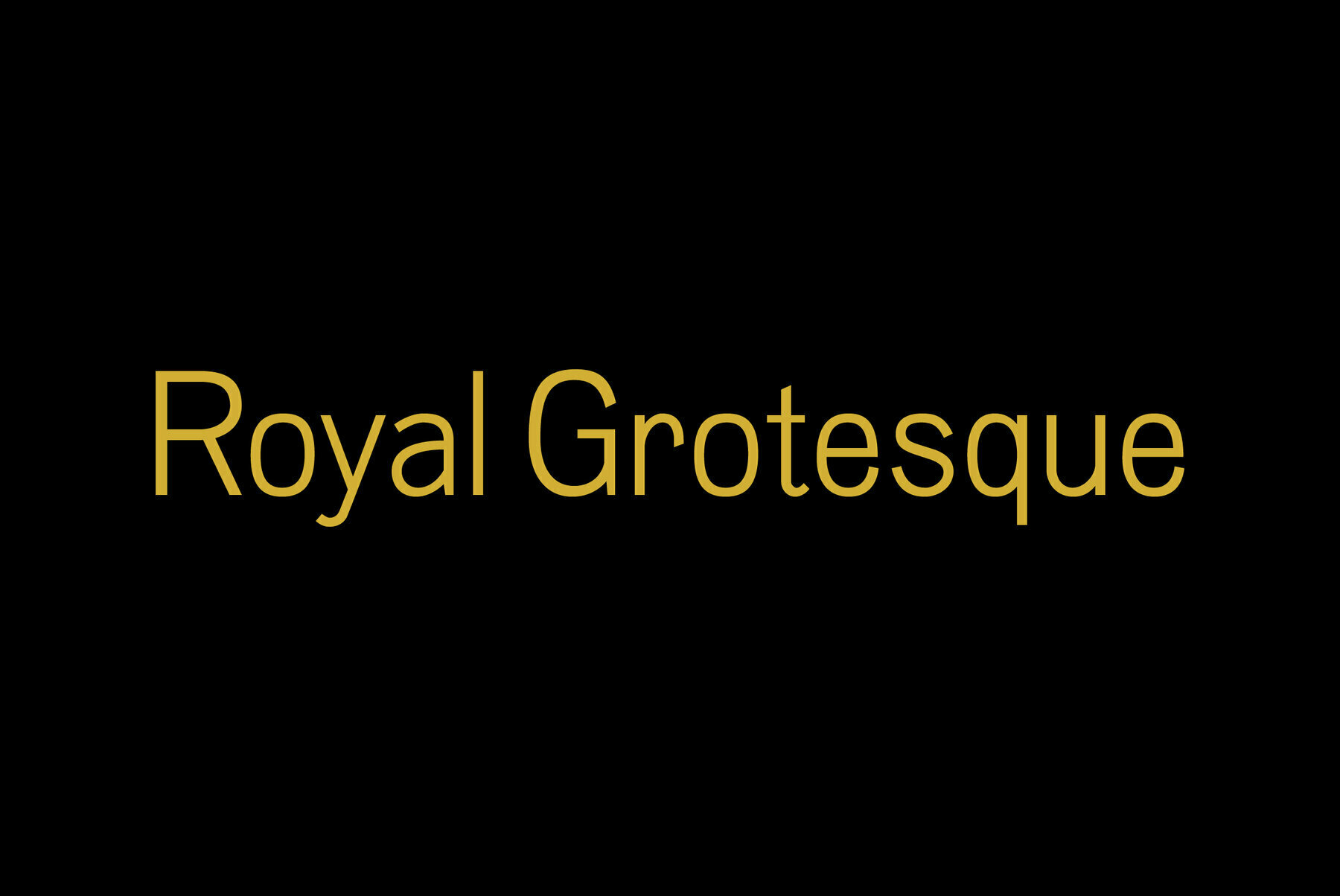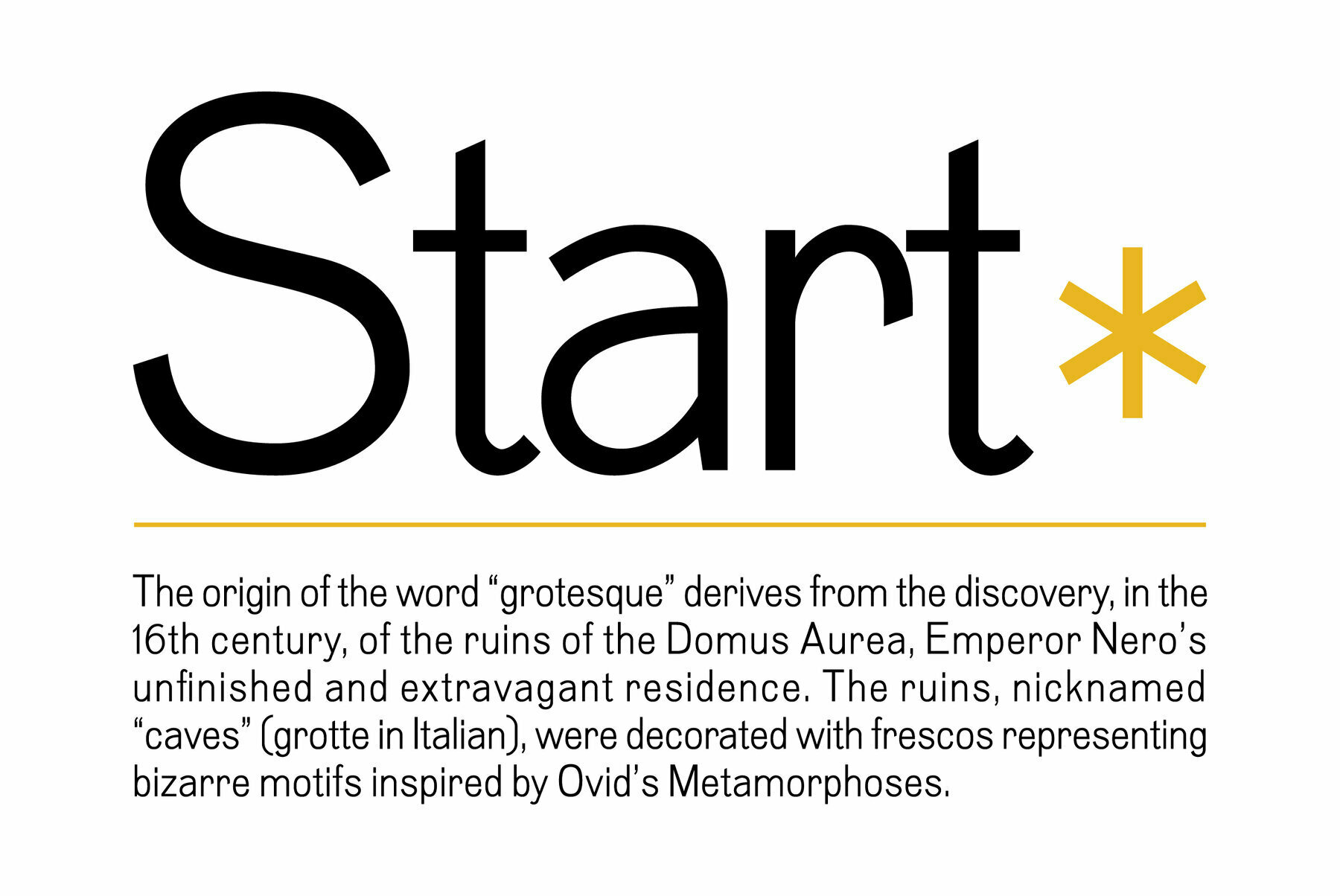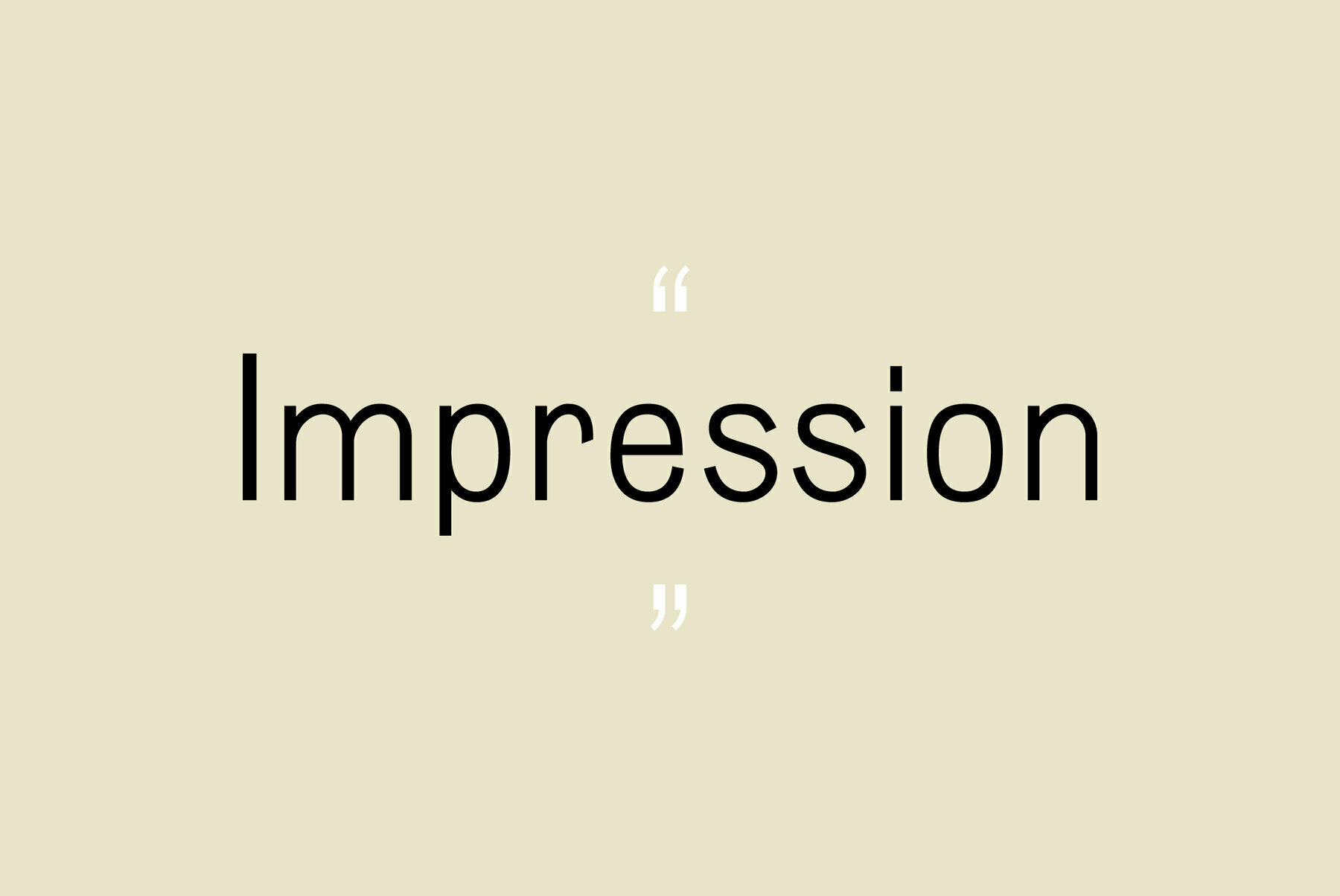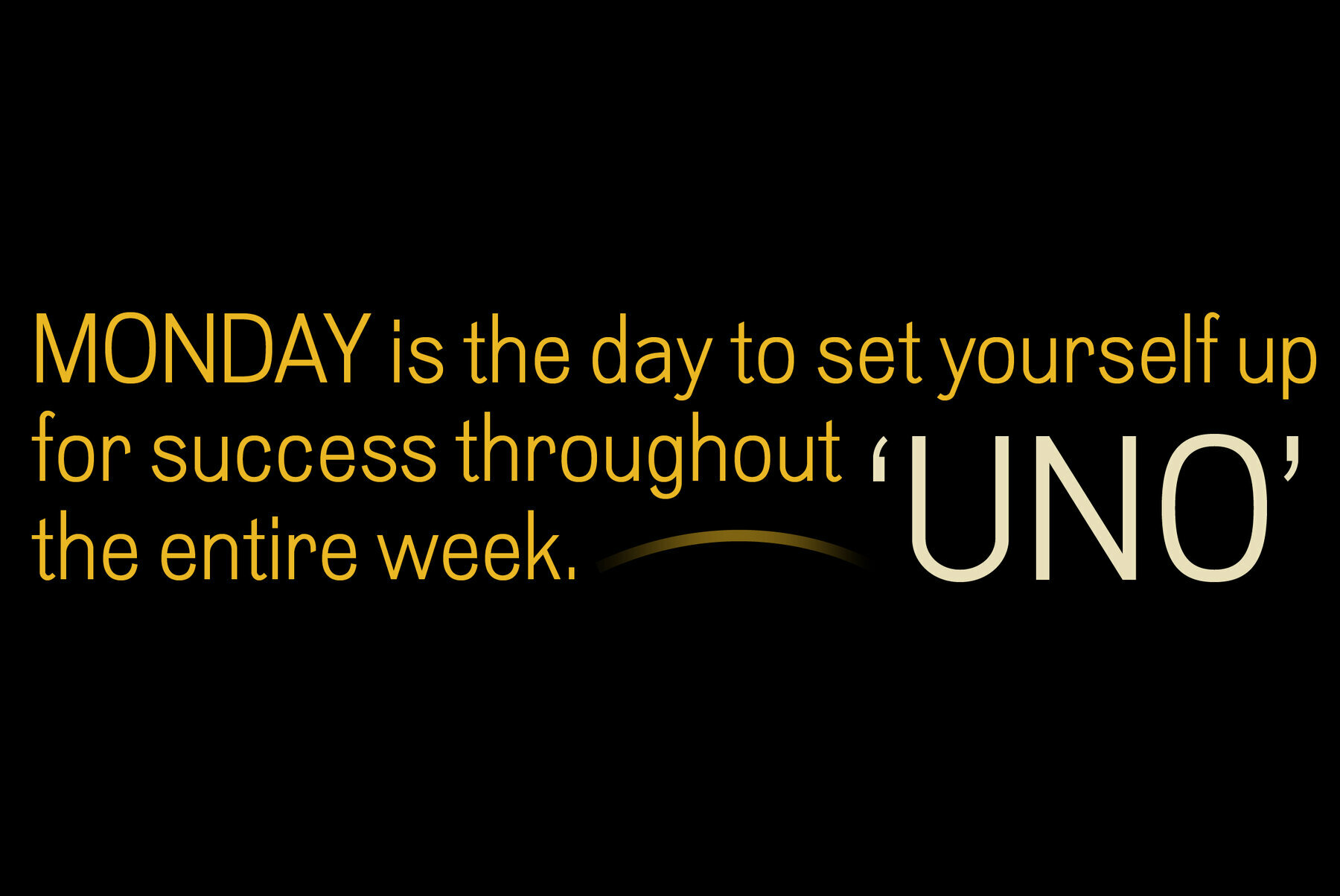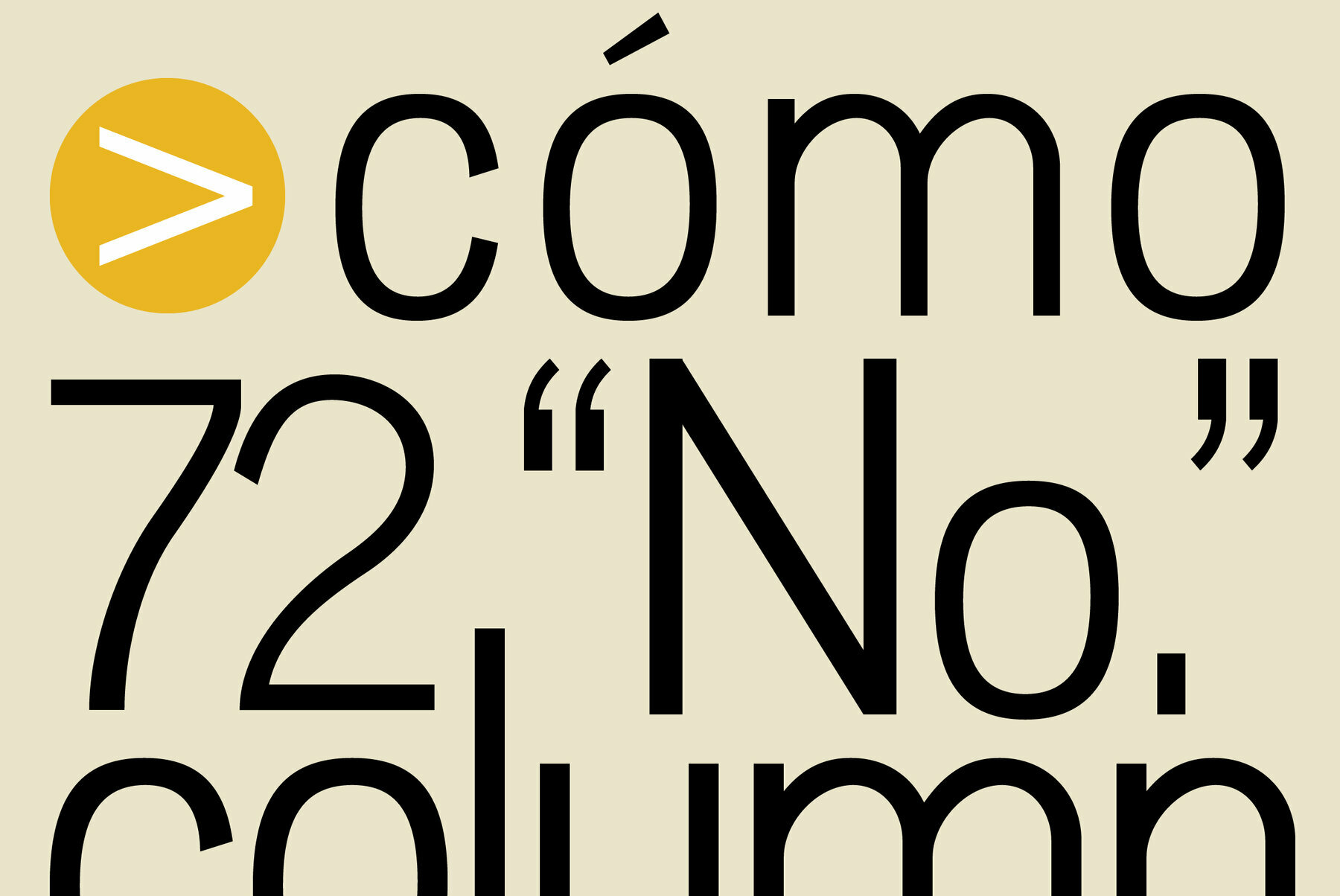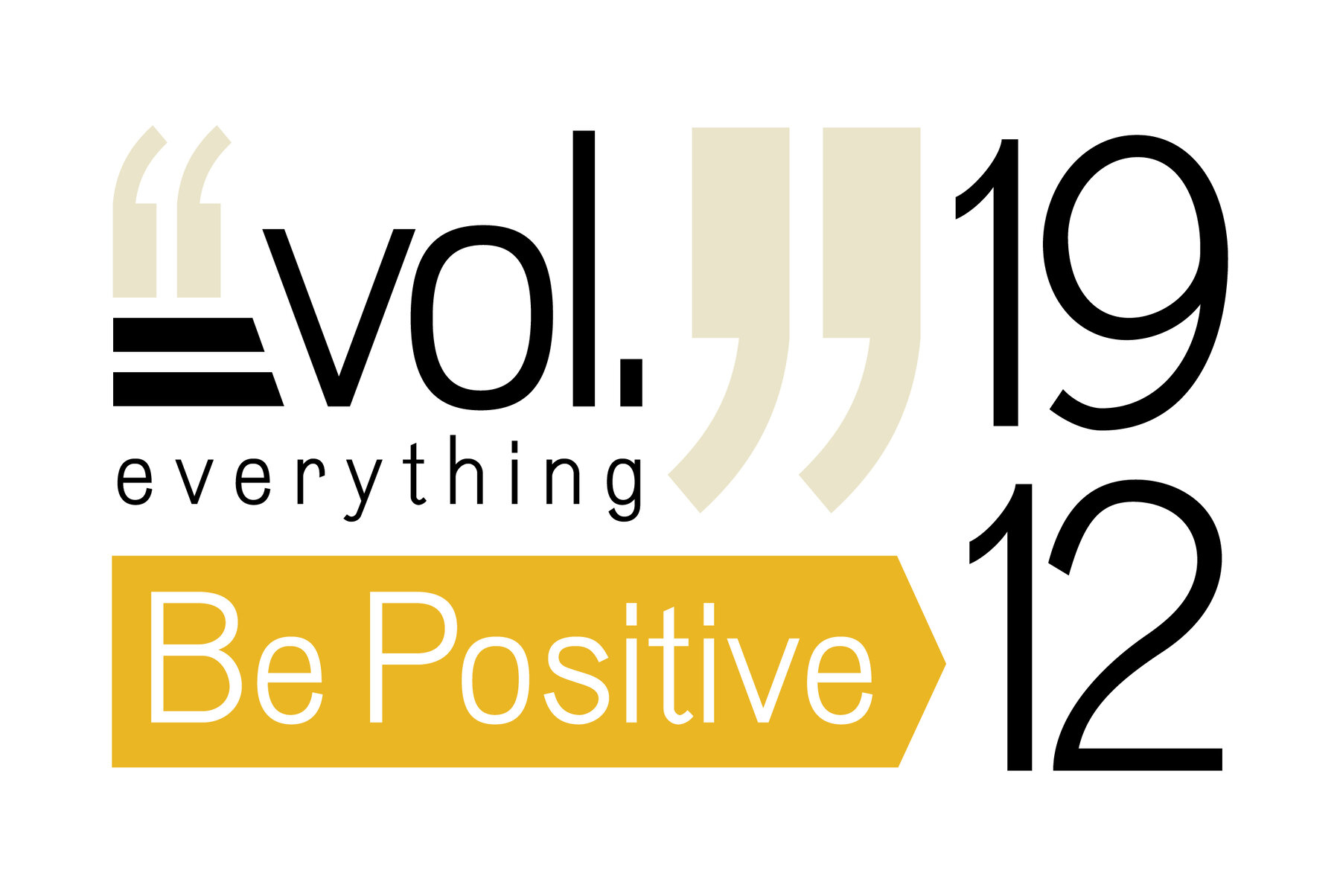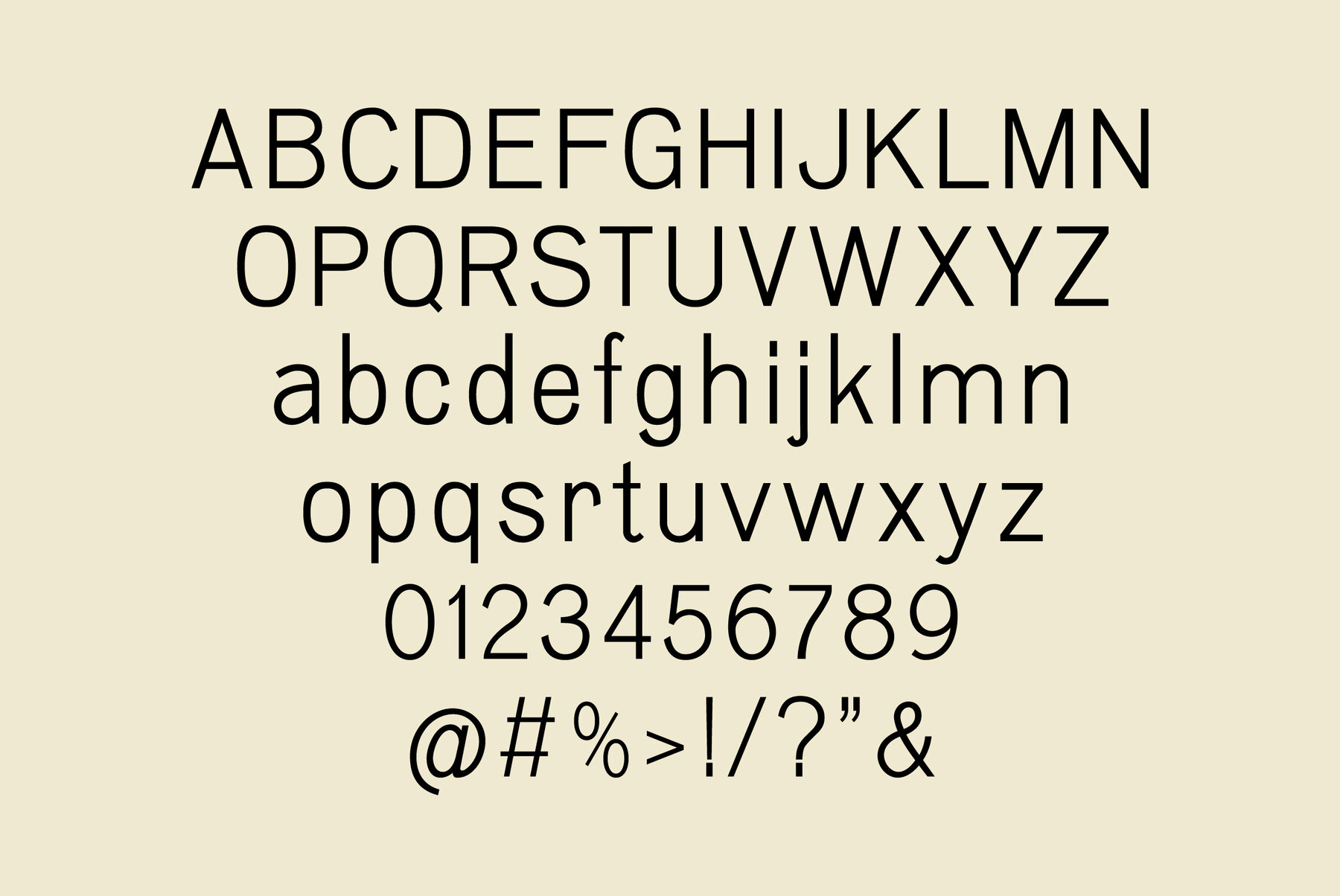
Royal Grotesque Font
Royal Grotesque Regular
Royal Grotesque is an early 20th century sans serif which was first released as Wotan by Wagner & Schmidt in 1914. The regular version is the most beautiful and characteristic of this family which contains several styles of different weights and widths.